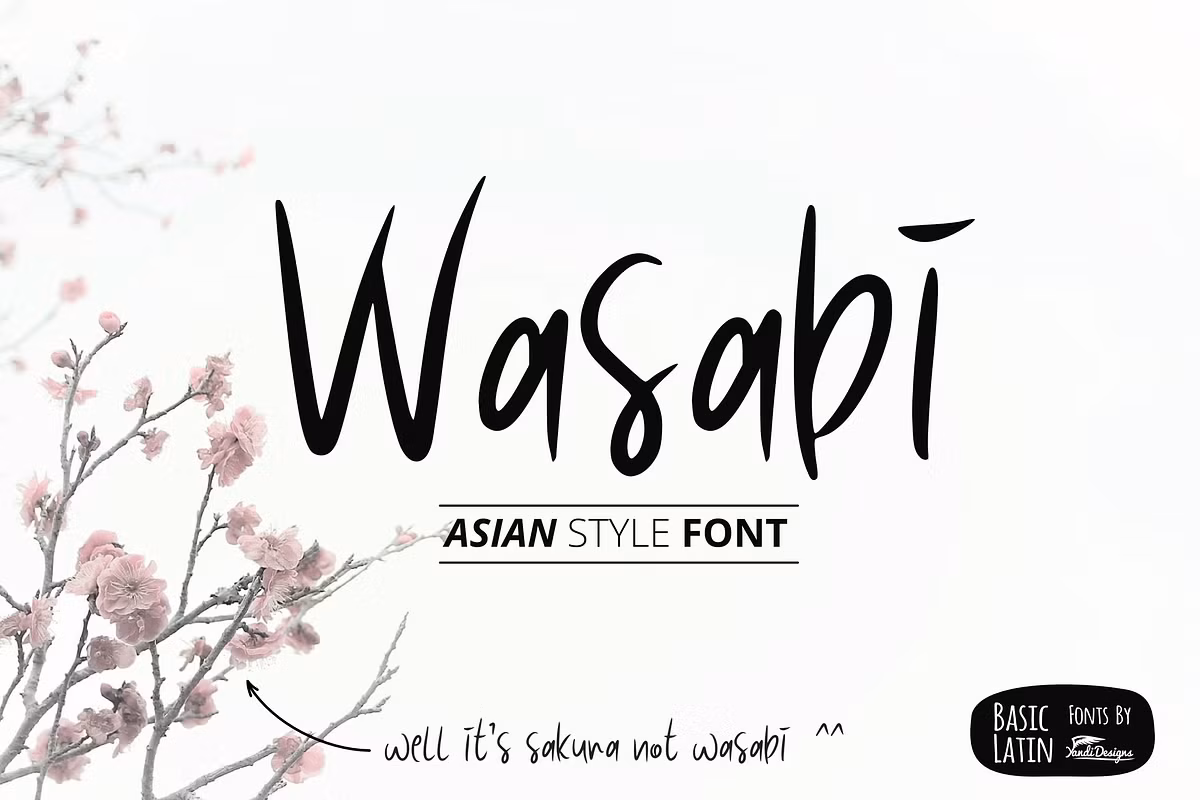
Wasabi Asian Style Font Free Download
Wasabi Asian Style Font Free Download is a bold and expressive display typeface inspired by traditional East Asian brush lettering. With its dynamic strokes, ink-like texture, and cultural flair, this font is perfect for restaurant branding, food packaging, event posters, menus, and creative projects that aim to evoke an authentic Asian aesthetic.
Wasabi brings a handcrafted, artistic feel that works beautifully in both digital and print media. Whether you're designing for sushi bars, martial arts events, or themed graphics, this font adds a powerful visual identity rooted in style and tradition.